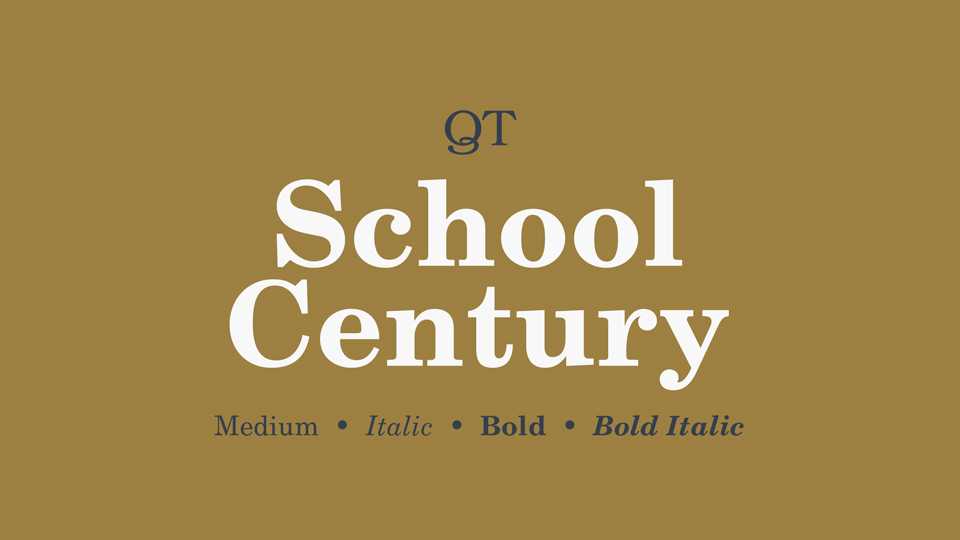
Download QT School Century typeface, a serif font family in two weights with matched Italics. QT School Century particularly intended for body text, magazines and literature, an especially easy-to-read typeface for textbooks.